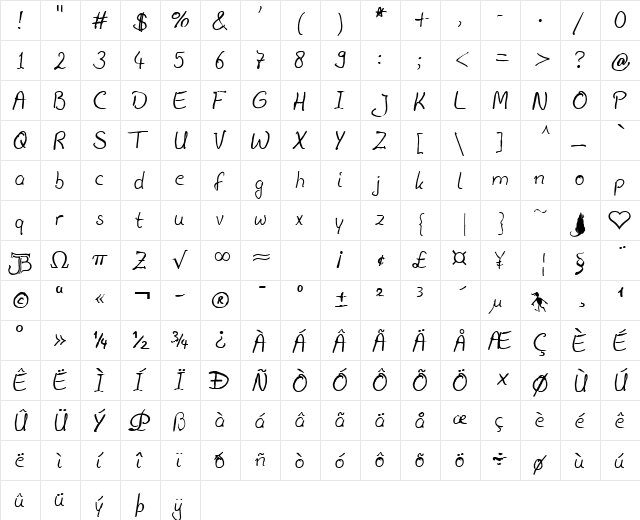
Julius Thyssen Cool
Design Context for Julius Thyssen Typeface
Julius Thyssen is a composed and adaptable typeface that performs quietly and consistently across a wide range of design contexts.